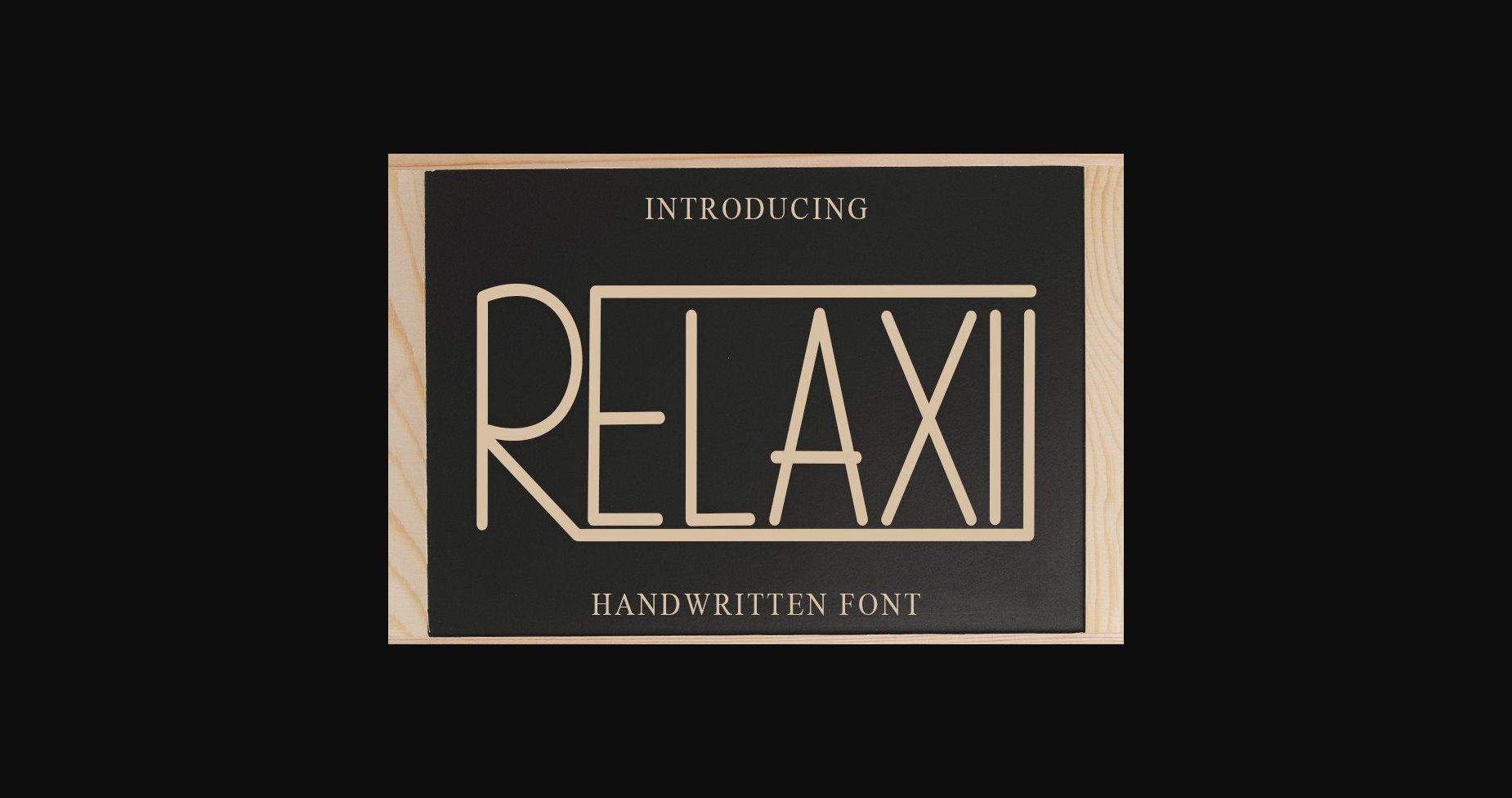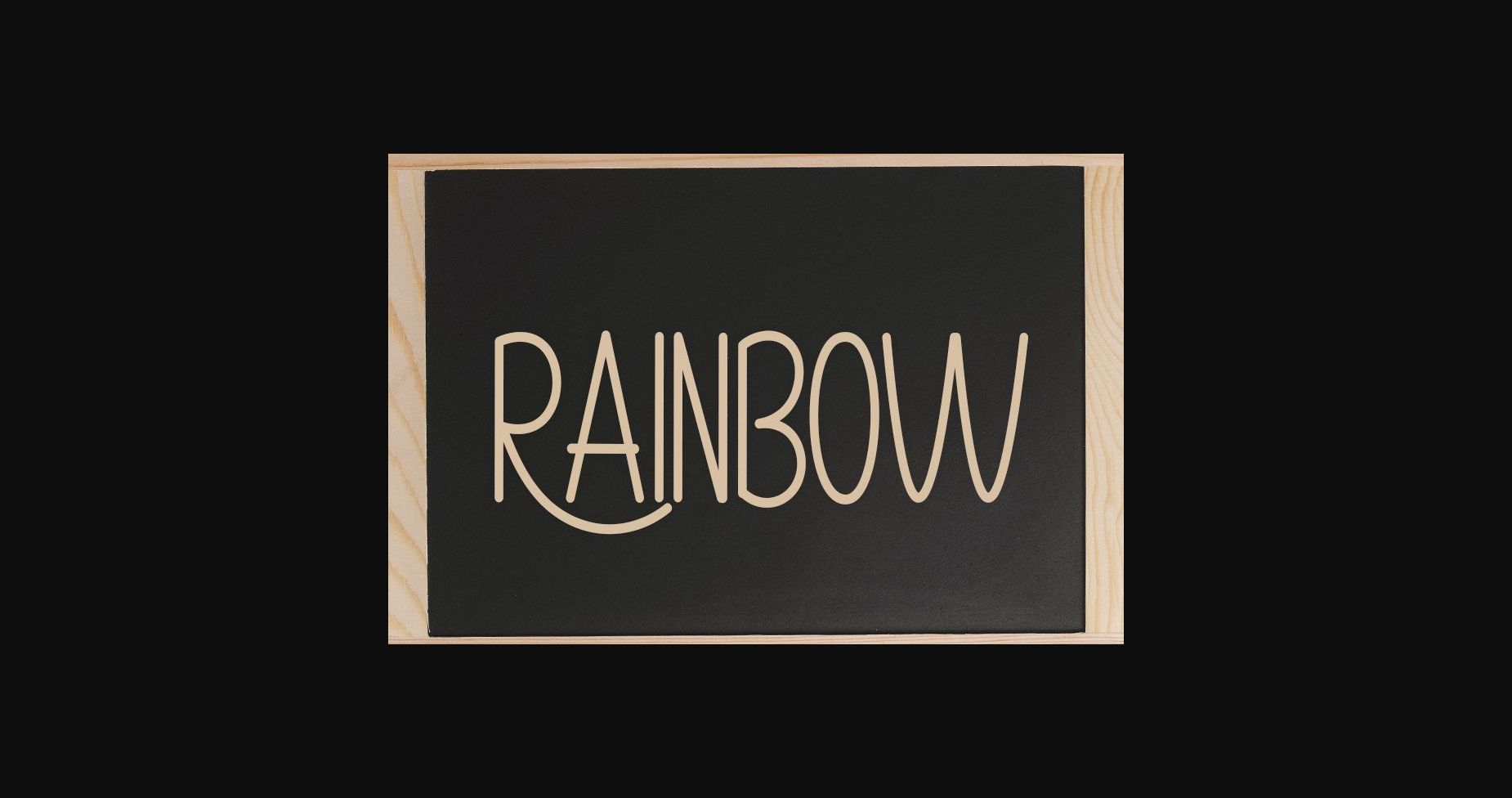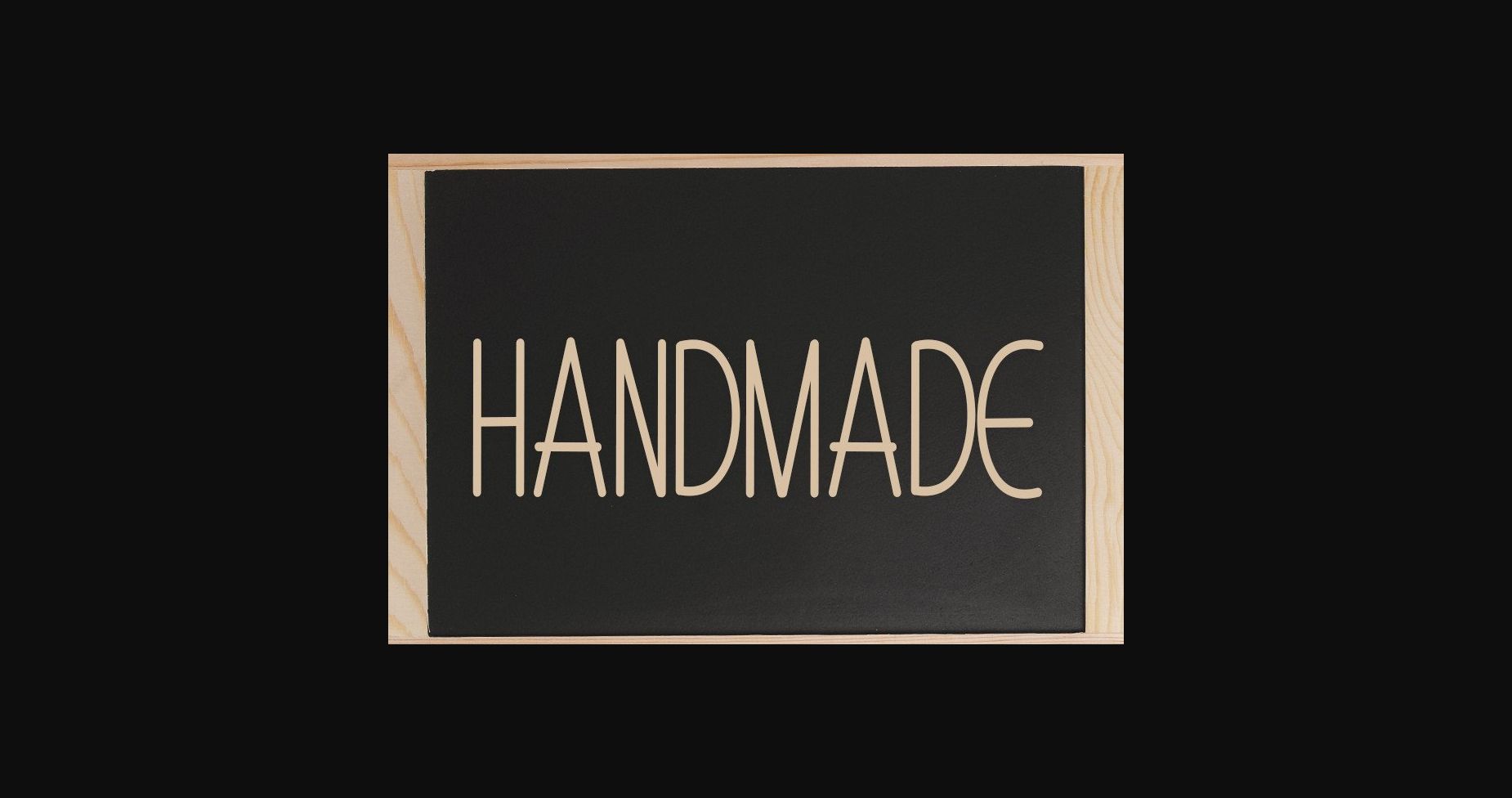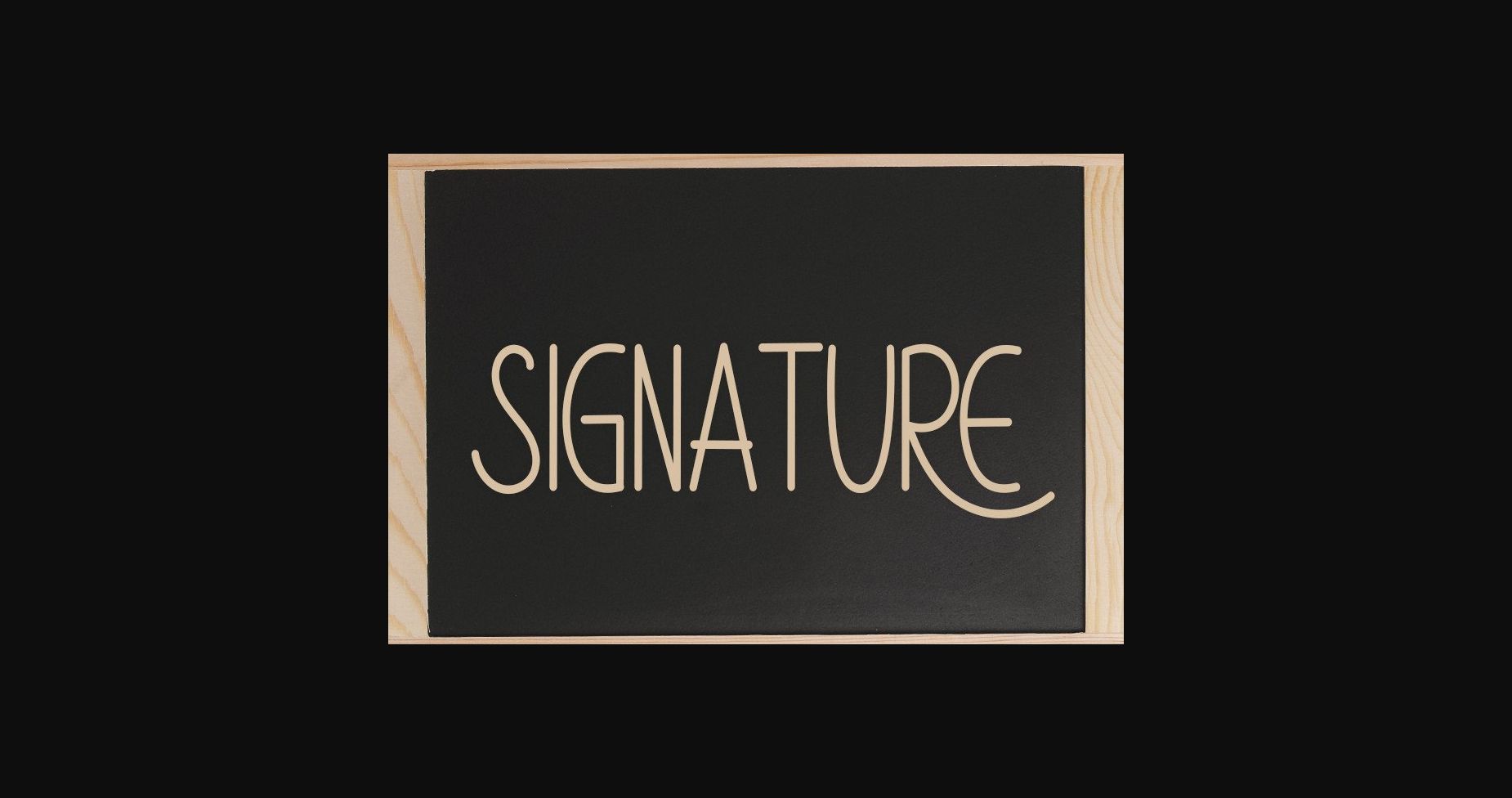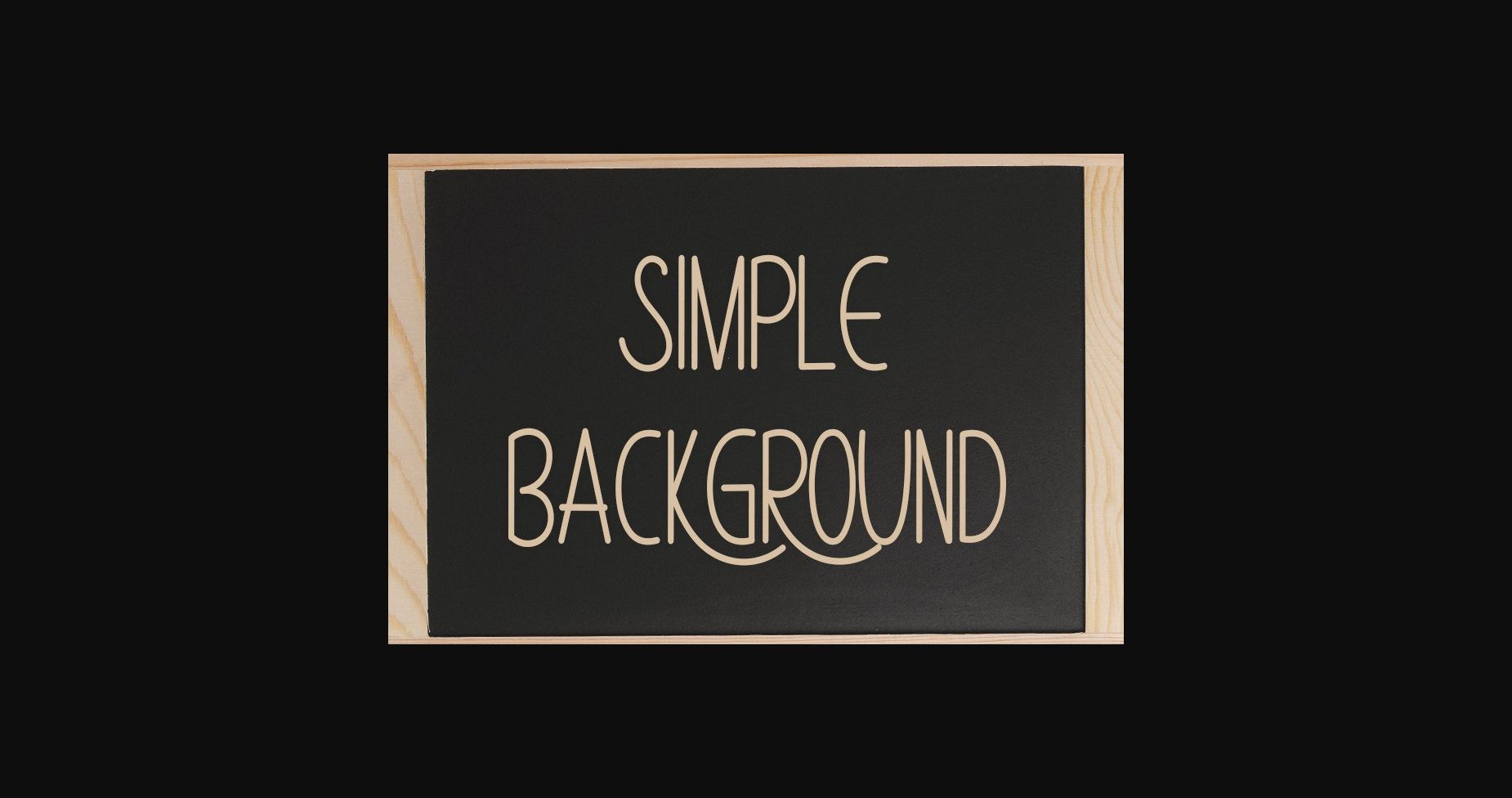
About Relaxii Font
Relaxii is a neat and beautiful sans serif font described by an elegant touch, perfect for your favorite projects. Fall in love with its incredibly distinct and timeless style, and use it to create spectacular designs!